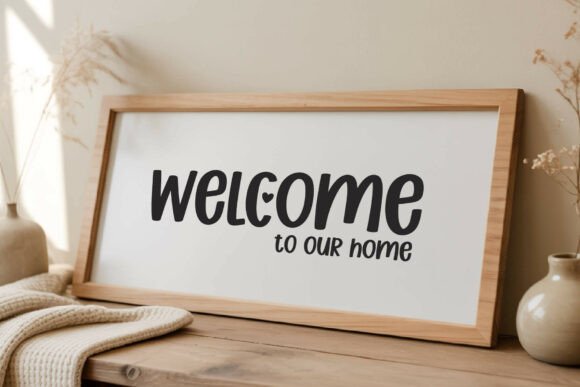
Festive Write Font
Festive Write is a handwritten font with optional heart letters. Turn on OpenType features to swap select letters (c, f, i, j, t) to their heart-accent versions and add instant charm to names, shirts, tumblers, totes, stickers, cards, and more.